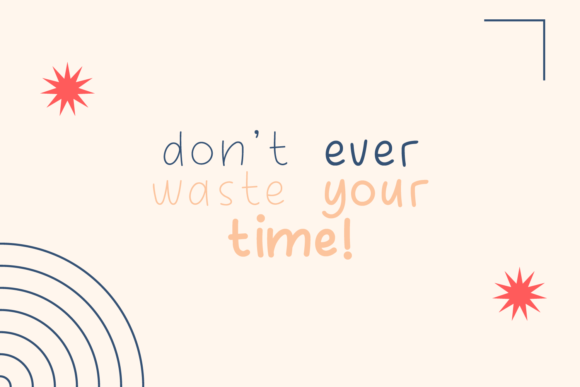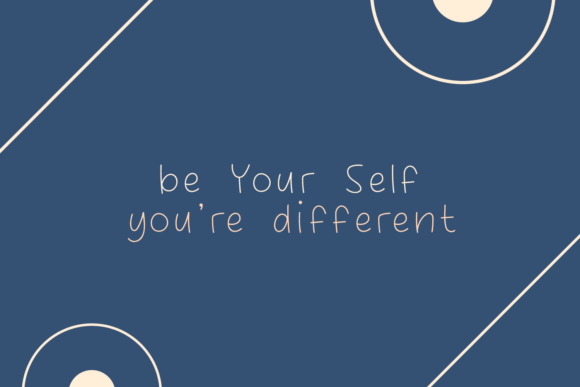
Breakfast Renegade Font
db-ku.com - Script & Handwritten -- Breakfast Renegade is a cute and natural handwritten font, that can be used for all chalkboard quotes or teaching material! Its authentic look will add a personal and realistic feel to your designs.